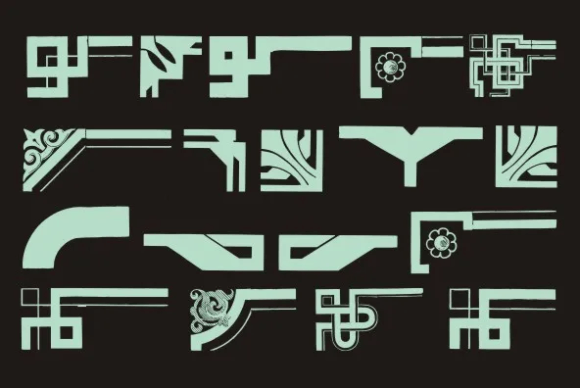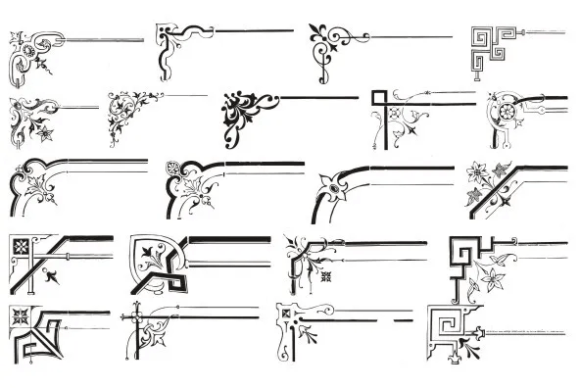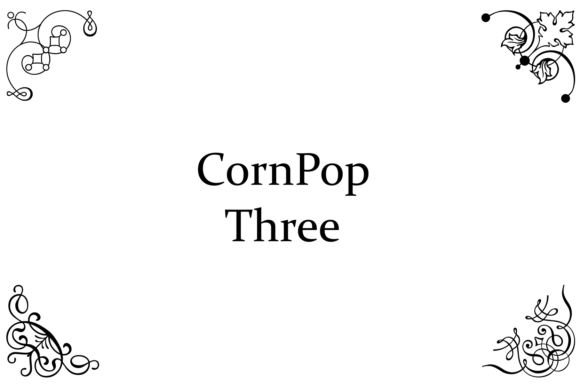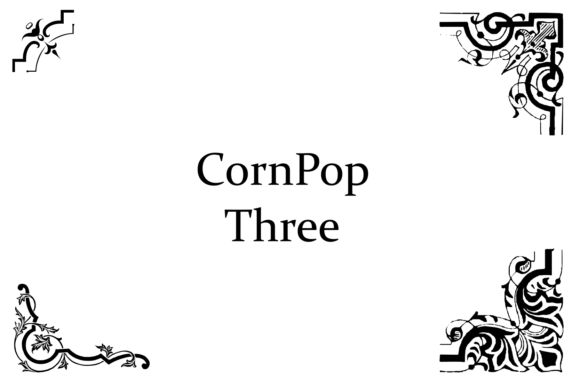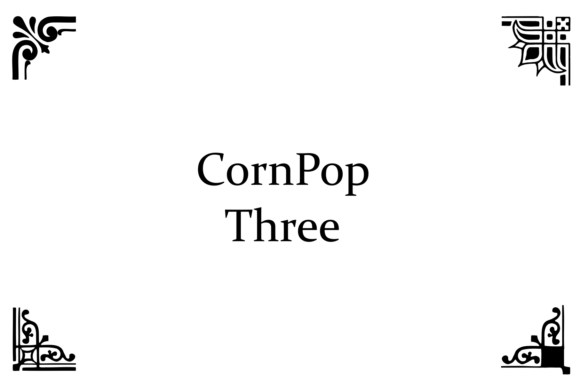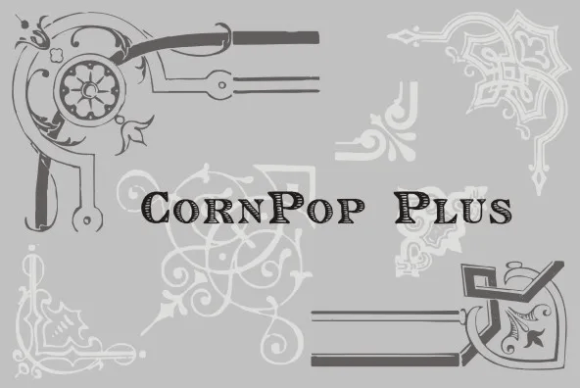
Introducing CornPop: A Timeless Fusion of Classic and Modern Design
In the world of typography, few fonts manage to strike a balance between nostalgia and modernity. However, CornPop, a new collection of classically-inspired corner and square designs, effortlessly bridges the gap between the charm of yesteryears and the aesthetic demands of today’s designs. This versatile font family is a treasure trove for designers and crafters seeking to add a vintage touch to their work.
The CornPop Collection: Six Unique Fonts at Your Fingertips
The CornPop font pack comprises six distinct fonts, each carrying its own unique character. This diversity allows designers to explore various creative avenues, from elegant and sophisticated to playful and whimsical. Whether you’re working on a branding project, crafting a logo, or designing a social media graphic, CornPop has the perfect font to suit your needs.
A Blend of Old-World Elegance and Modern Sophistication
CornPop’s designs are rooted in classic typography, with intricate details and ornate flourishes that evoke a sense of nostalgia. However, these fonts have been carefully crafted to meet the demands of modern design, ensuring they remain legible and versatile across various applications. The result is a font family that feels both timeless and contemporary.
Key Features of CornPop Fonts
- Classically-inspired designs: CornPop’s fonts draw inspiration from traditional typography, featuring intricate details and ornate flourishes.
- Six unique fonts: The CornPop pack includes six distinct fonts, each with its own character and personality.
- Versatile and legible: Despite their ornate details, CornPop fonts remain highly legible and versatile, making them suitable for a wide range of design applications.
- Vintage touch: Add a touch of nostalgia to your designs with CornPop’s classic-inspired fonts.
Design Applications for CornPop Fonts
CornPop’s versatility makes it an excellent choice for various design projects, including:
- Branding and logos: Create a lasting impression with CornPop’s elegant and sophisticated fonts.
- Social media graphics: Add a touch of vintage charm to your social media graphics, from Facebook posts to Instagram stories.
- Packaging design: Stand out on store shelves with CornPop’s unique and eye-catching fonts.
- Web design: Enhance your website’s aesthetic with CornPop’s modern and legible fonts.
Tips for Getting the Most Out of CornPop Fonts
To maximize the potential of CornPop fonts, consider the following tips:
- Experiment with font combinations: Pair different CornPop fonts to create visually appealing and harmonious designs.
- Play with font sizes and colors: Use CornPop fonts in various sizes and colors to add depth and visual interest to your designs.
- Add textures and patterns: Combine CornPop fonts with textures and patterns to create unique and engaging designs.
CornPop is a captivating font family that seamlessly blends old-world elegance with modern design sophistication. With its six unique fonts, versatility, and legibility, CornPop is an excellent choice for designers and crafters seeking to add a vintage touch to their work. Explore the magic of CornPop today and discover a world of creative possibilities!